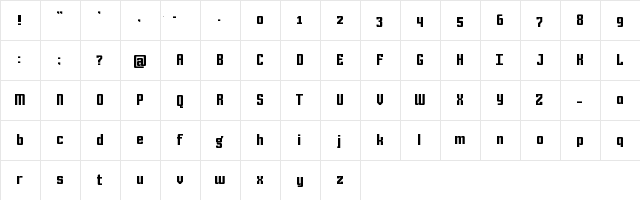
KING SANS Regular
| Designer | Wolf Lambert |
Design Context for KING SANS Typeface
KING SANS takes a measured approach to typography — its balanced proportions and neutral character make it a reliable workhorse for both digital and print work.